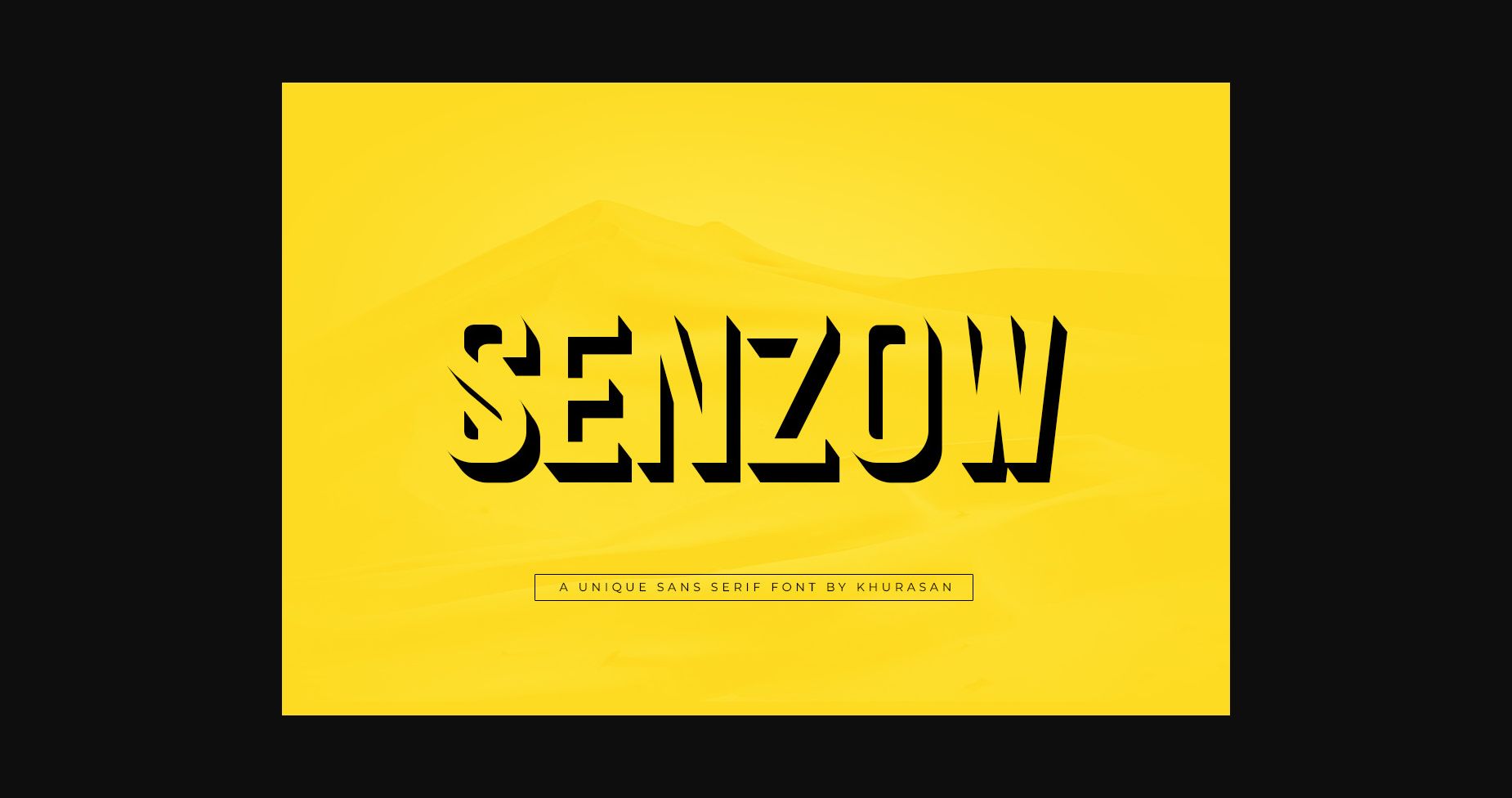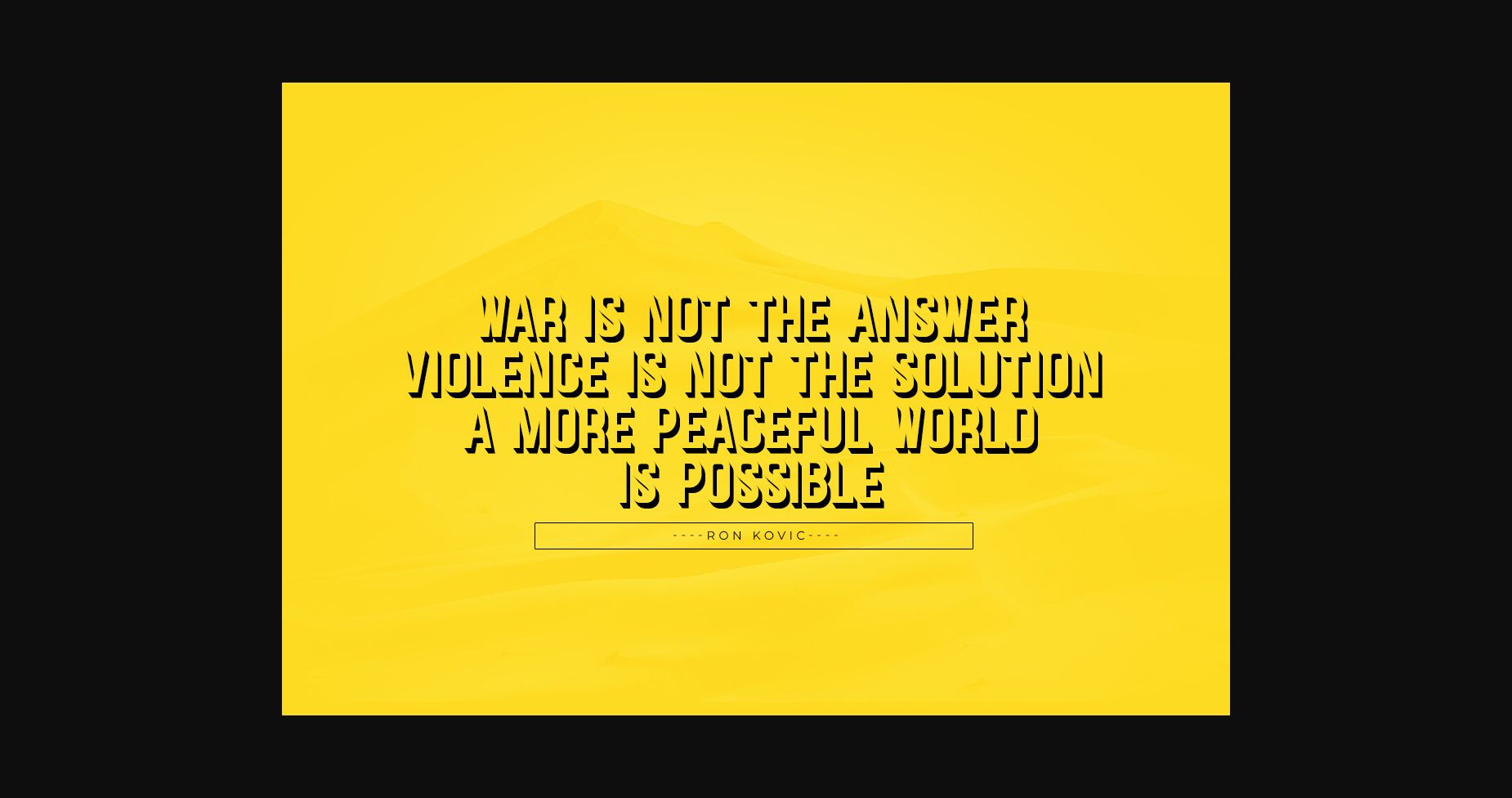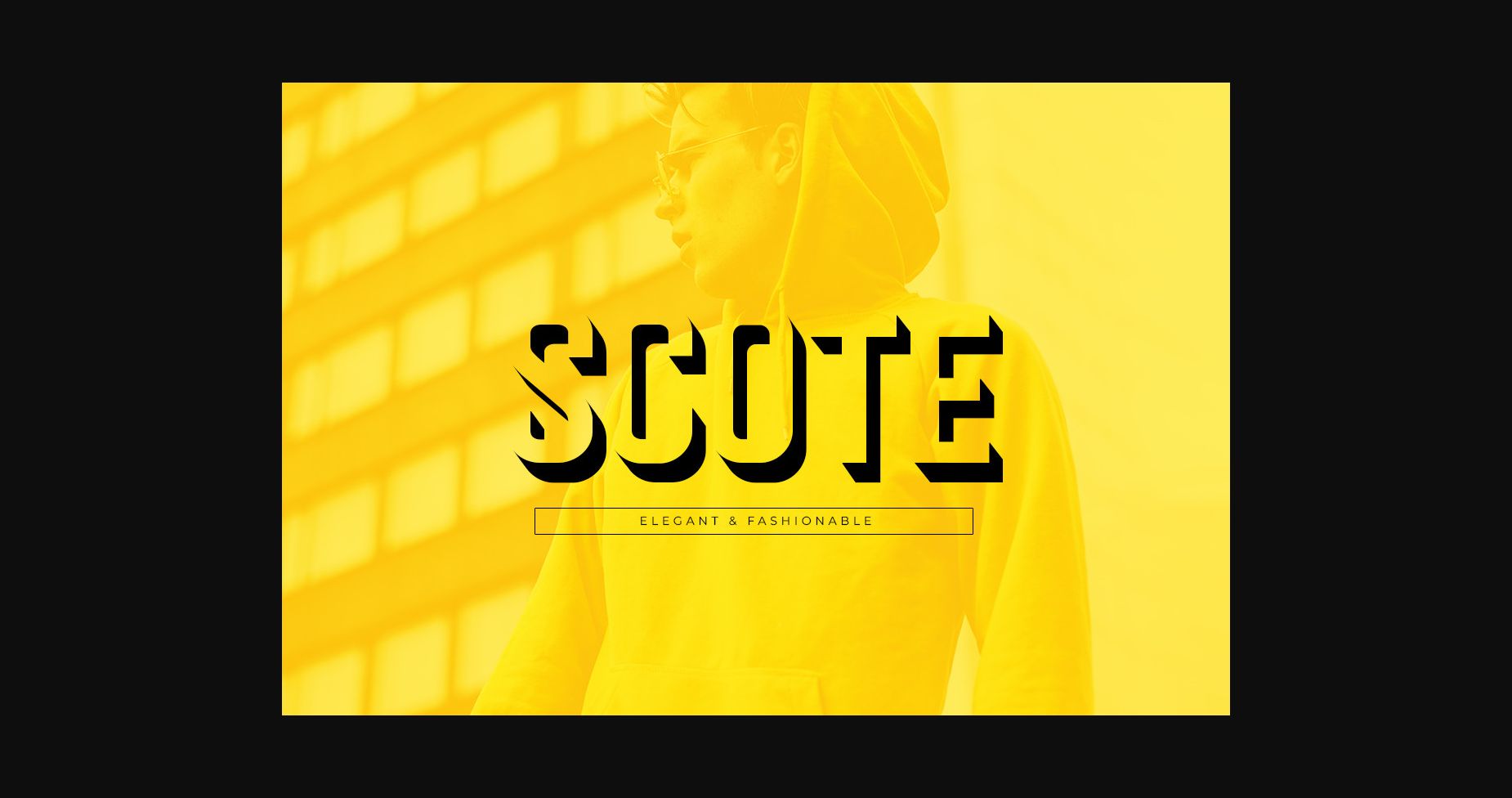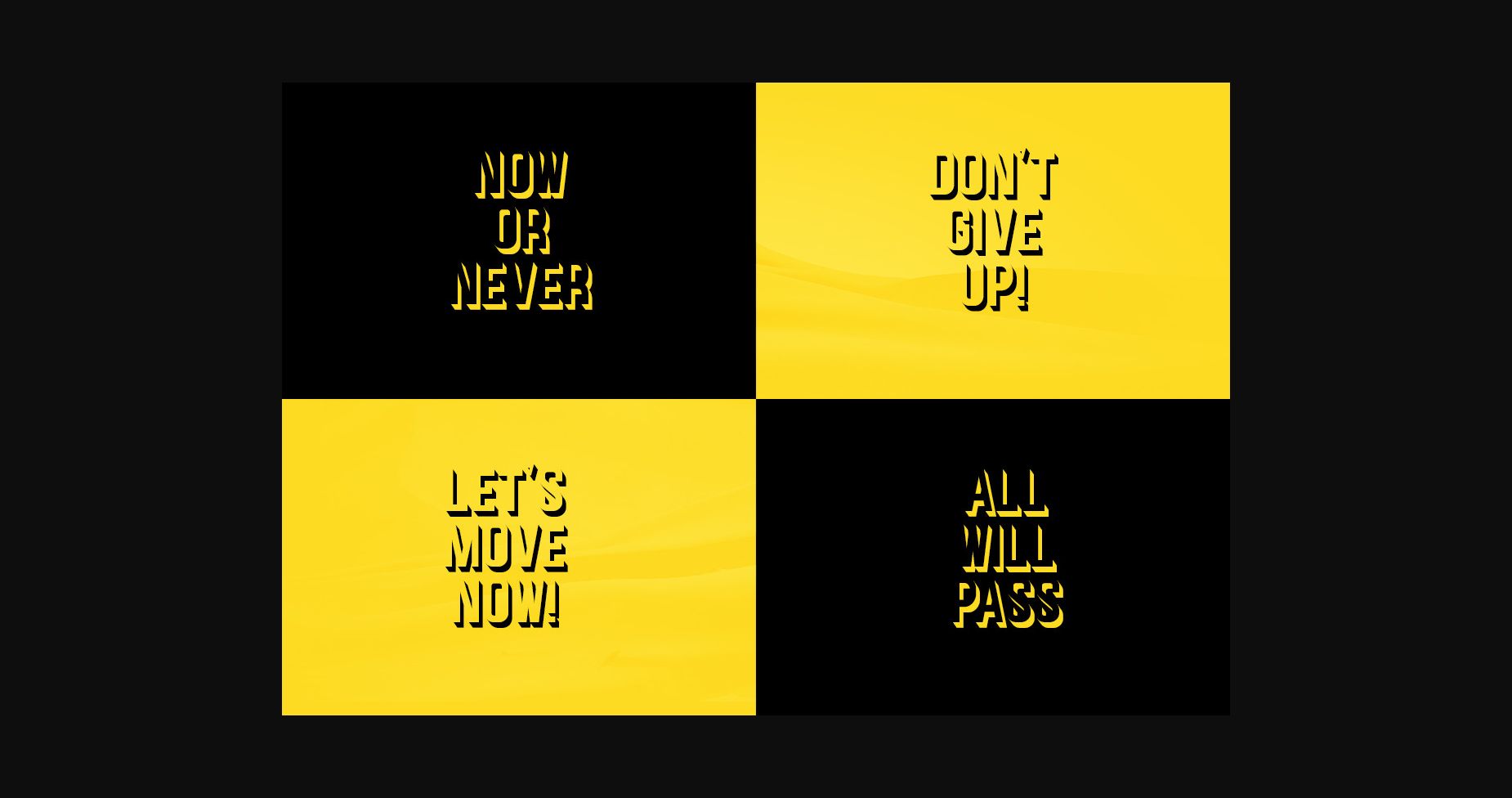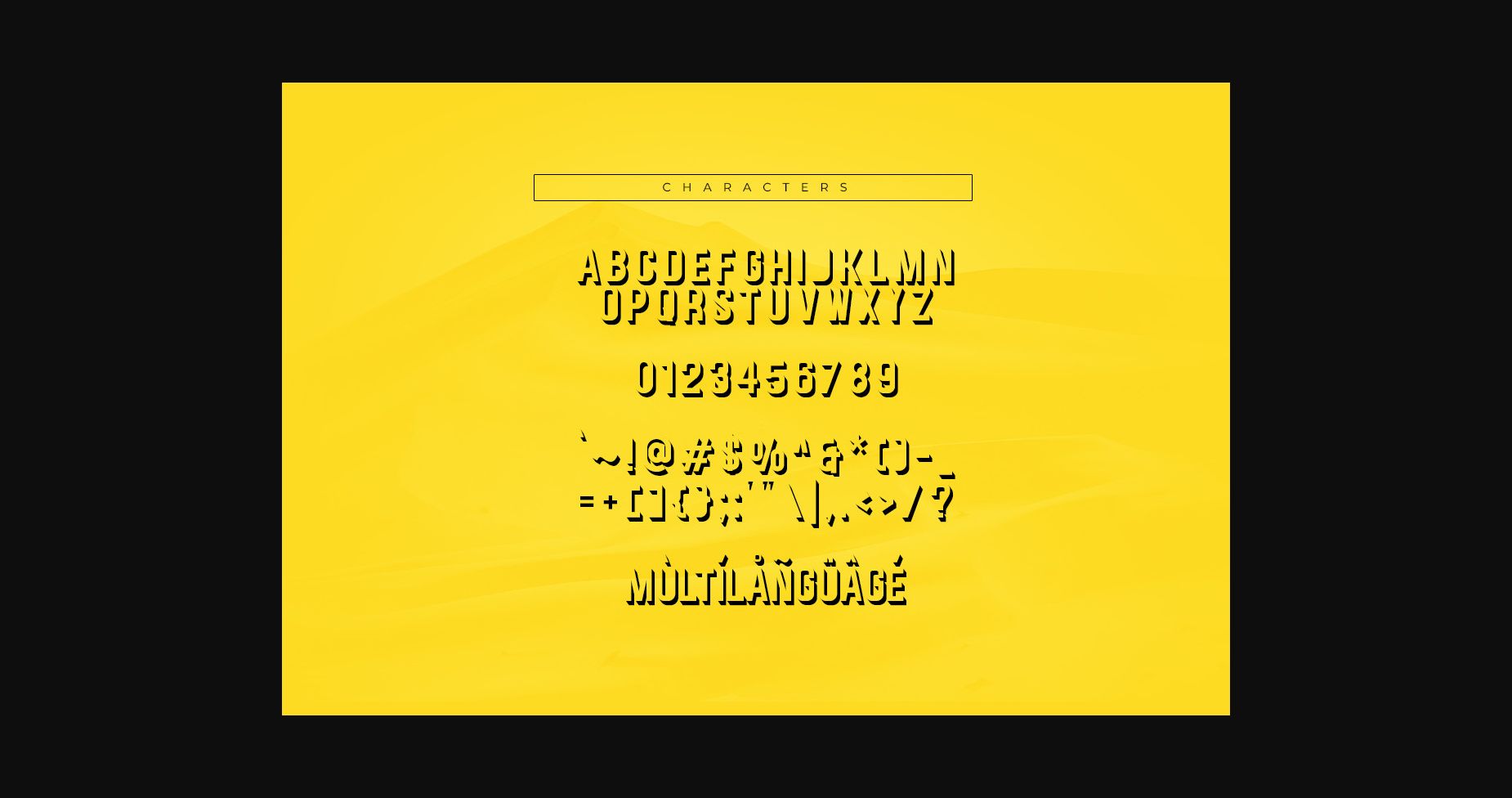
Senzow Font
About Senzow Font
Senzow is a modern and unique sans serif font perfect for posters, logos, magazines, book covers, banners, and many more! Get this fantastic font, and use it to create lovely designs. It can easily be matched to an extensive set of projects, so add it to your creative ideas and notice how it makes them stand out!